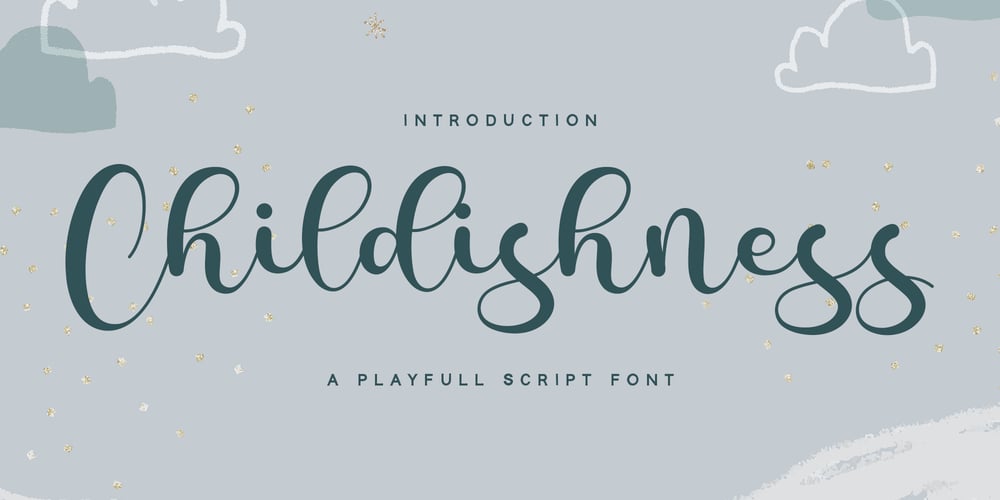
Childishness Font Family was designed by Nadia Salsabila and published by Alpaprana. Childishness contains 1 styles and family package options. Childishness is a playful script font with authentic and playful feels. It will be perfectly used for Branding, Logo Design, Lettering, Logotype, Clothing, Poster, magazine, packaging, posters, shopping bags, t-shirts, book covers, photography, special events and other design project.